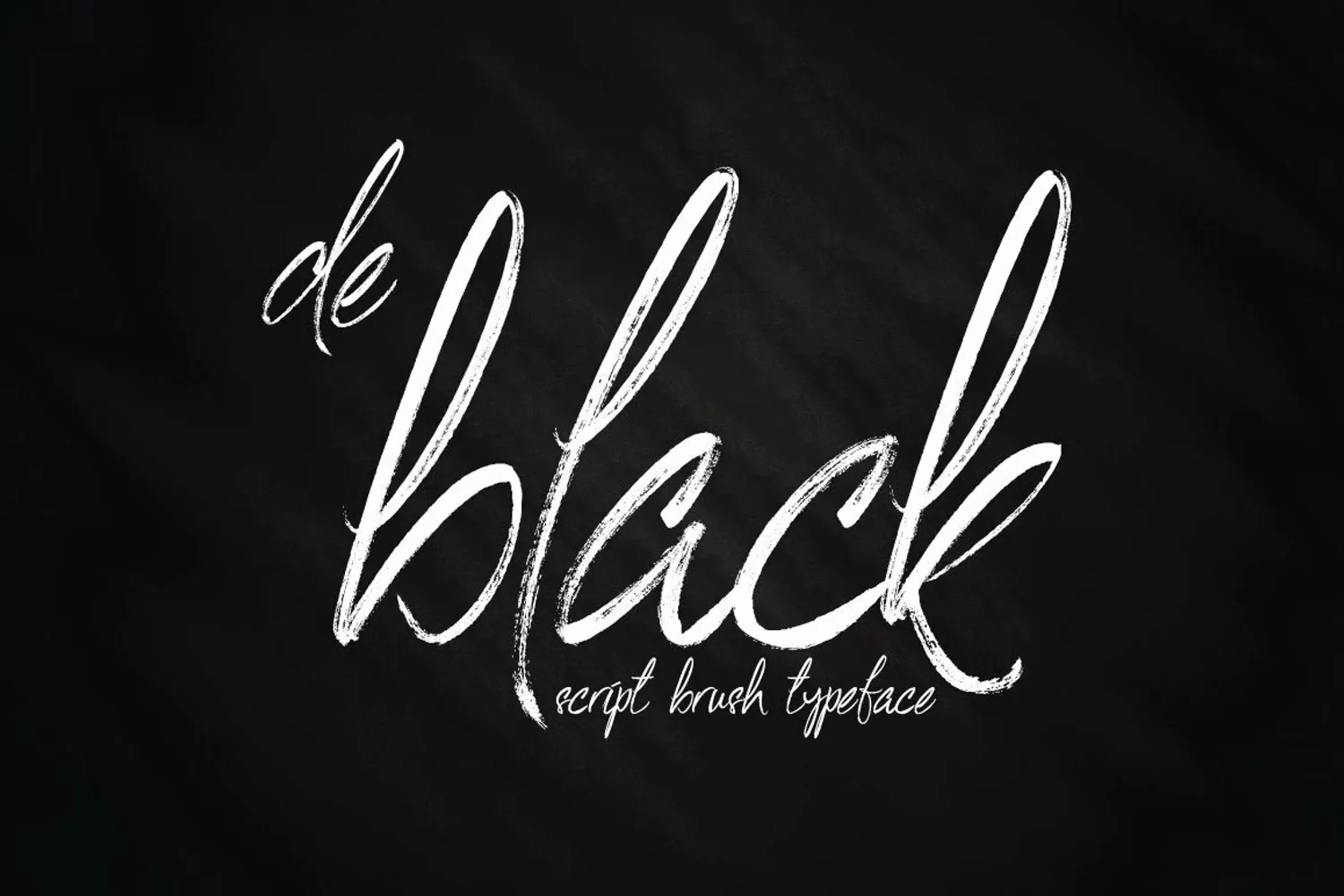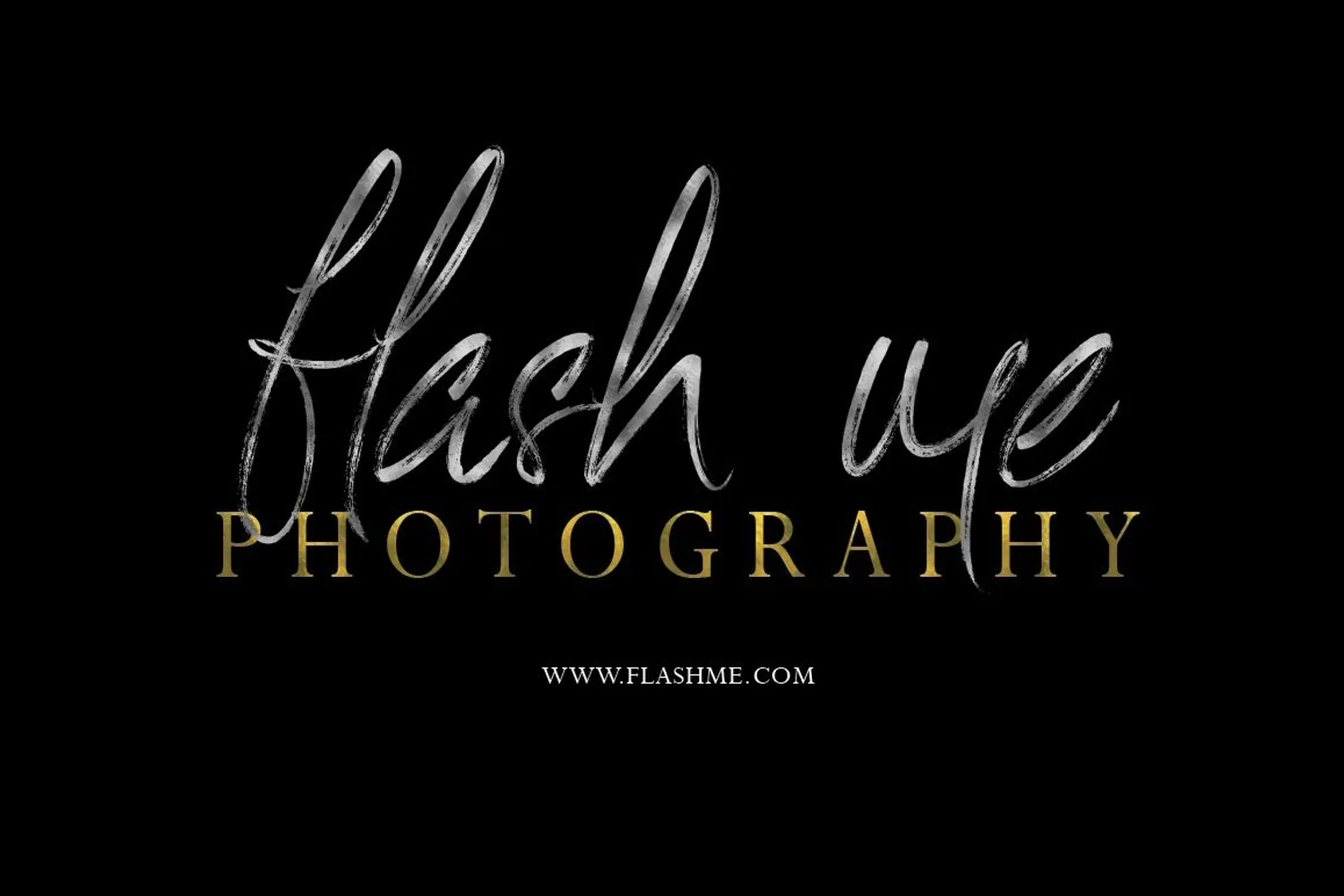
Web Font De Black Typeface
De Black is an authentic brush script typeface, designed with care is guaranteed to give you in creating beautiful hand-made typography within a second. ;)
Handwritten two alternative lowercase characters only which allow you to create different feels for different projects. Try switching between the uppercase and lowercase buttons to get the best layout for your text.
De Black is perfect for logos, websites, invitations, greeting cards, magazines, business cards, packaging and many more! Be a perfect professional in a minute and start creating modern designs...